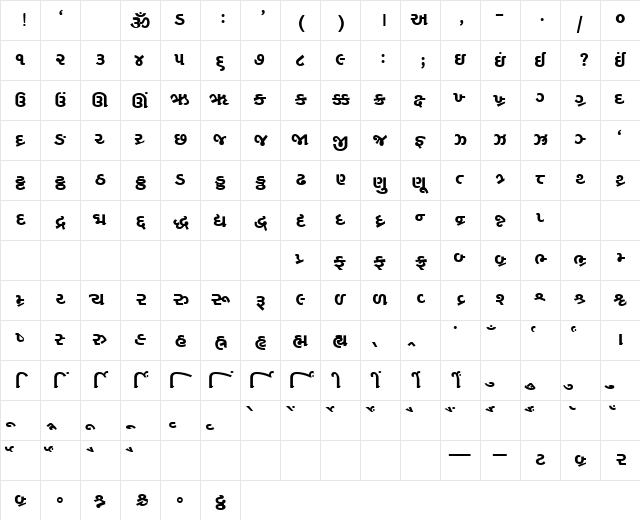
AkrutiGujArchana Bold
Design Context for AkrutiGujArchana Typeface
AkrutiGujArchana is a composed and adaptable typeface that performs quietly and consistently across a wide range of design contexts. Its bold stroke weight gives it real presence on the page.